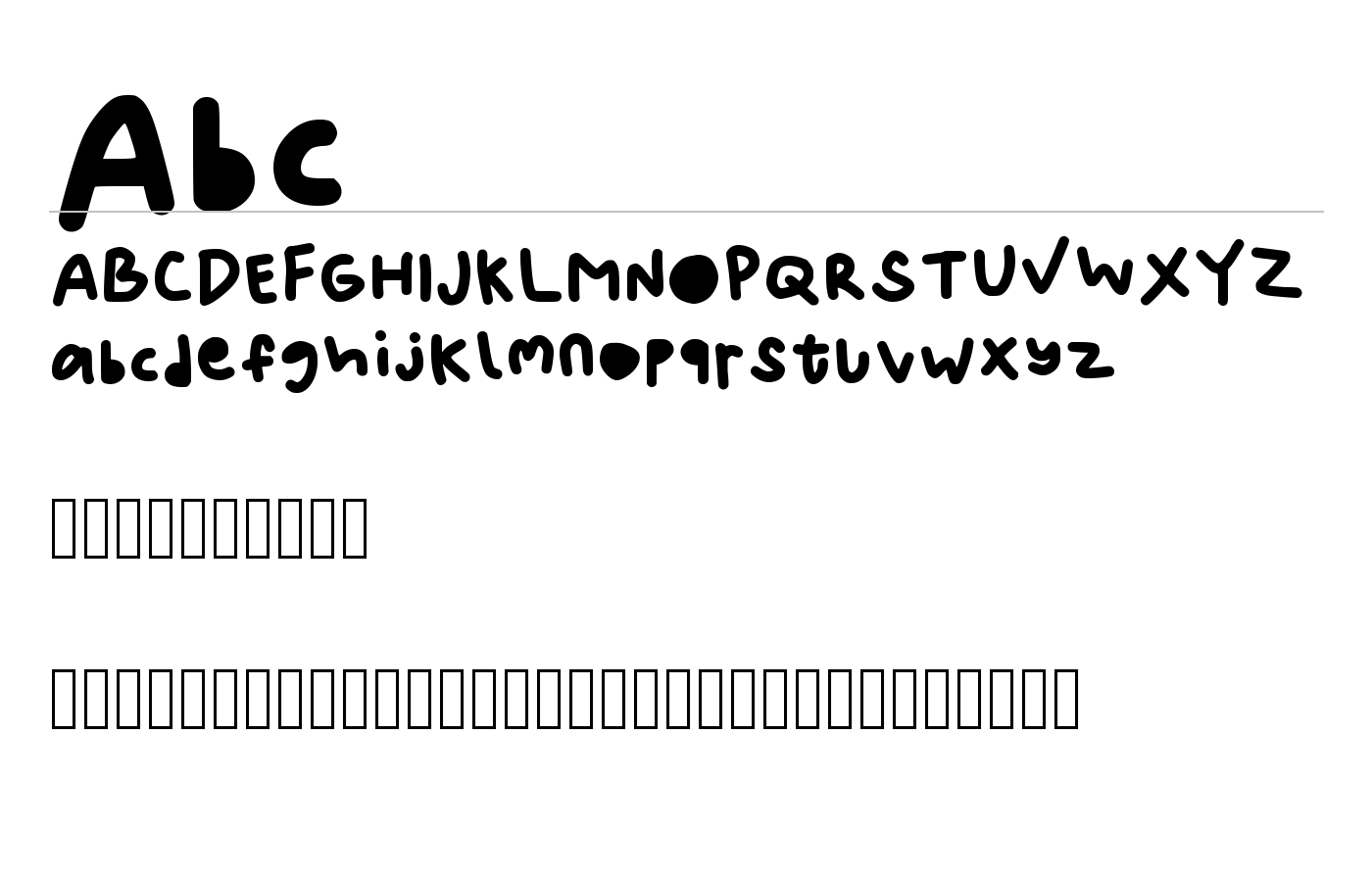
Abc Font is a playful and casual handwritten sans serif with rounded, irregular shapes that give it a friendly and approachable personality. Its medium weight and slightly condensed characters make it ideal for informal designs, children's materials, or any context where a warm, personal touch is desired. This font works well in logos, social media graphics, and headlines where a lively, hand-crafted feel is needed.
Abc Font